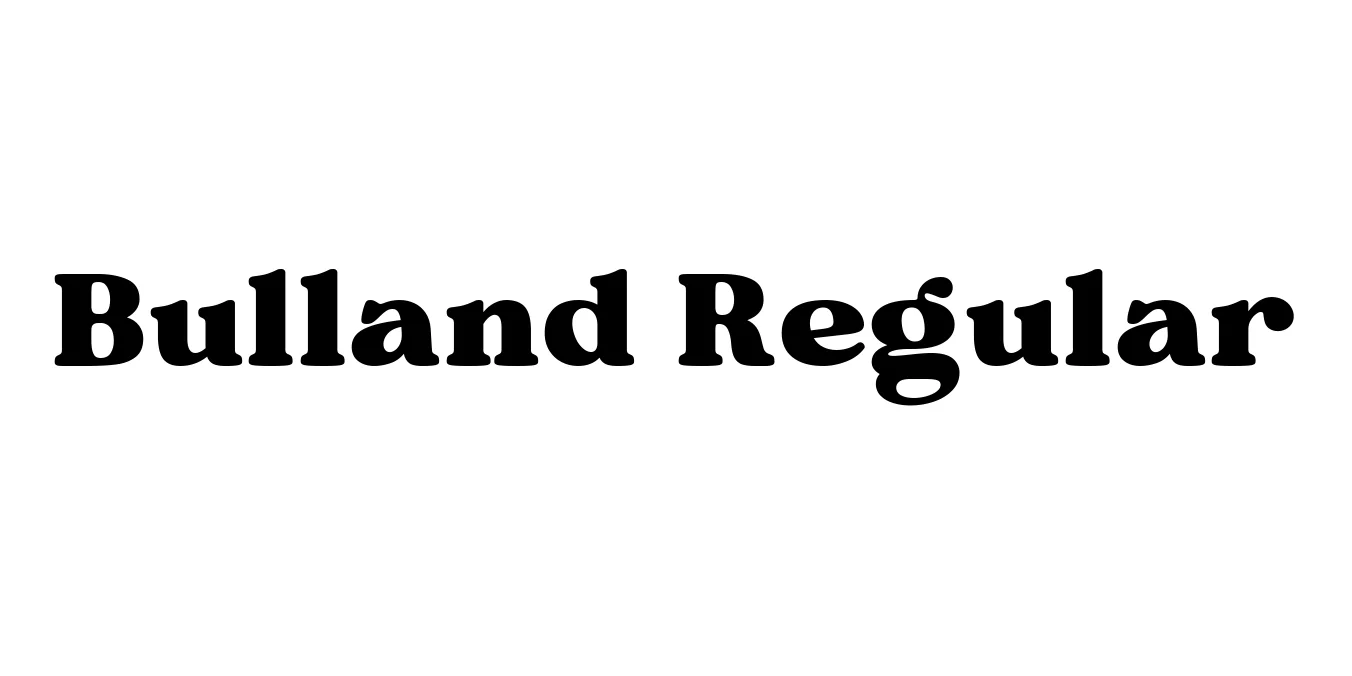
Bulland Regular
| Font Name | Bulland |
| Category | Display Serif |
Bulland Regular is a bold and powerful display font that captures the vibrant essence of 1970s retro aesthetics. Created by the talented team at Alit Design, this typeface features heavy weights and soft, rounded terminals that bridge the gap between vintage charm and modern readability. Its robust structure and unique character shapes make it an excellent choice for designers who want to inject personality and a sense of nostalgia into their creative projects.
Historically, the typeface was developed to cater to the growing demand for bold vintage typography in contemporary branding and merchandise design. Its versatility allows it to function seamlessly across various media, from digital advertisements to physical print. Bulland Regular stands out as a flagship example of how classic design principles can be adapted for high-impact visual communication, ensuring your message is both seen and felt.
Bulland Regular Best Uses
Creating iconic and memorable logos with a strong vintage touch.
Designing high-impact headlines for events and promotional materials.
Crafting bold graphic quotes and eye-catching video thumbnails.
Perfect for retro-themed t-shirts and varsity-style sports merchandise.